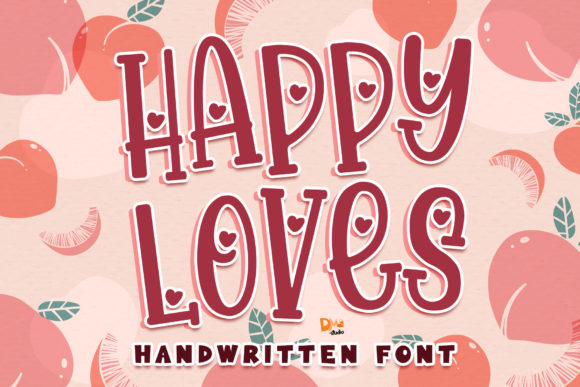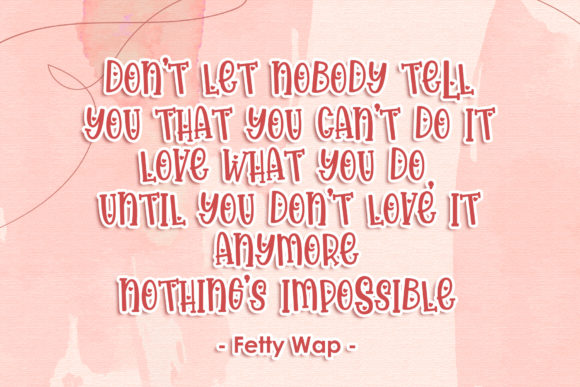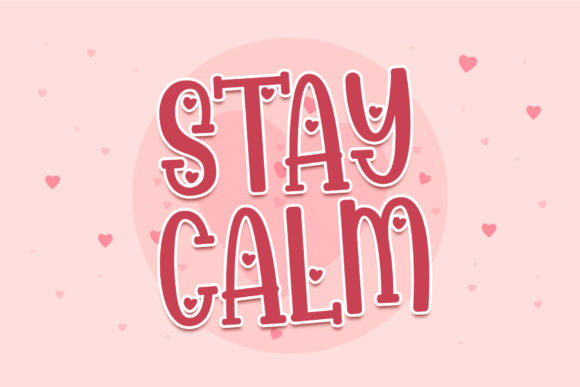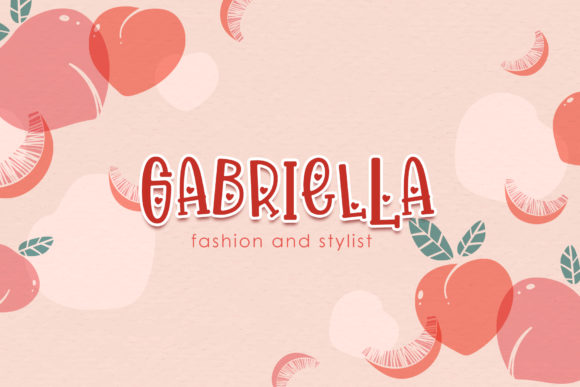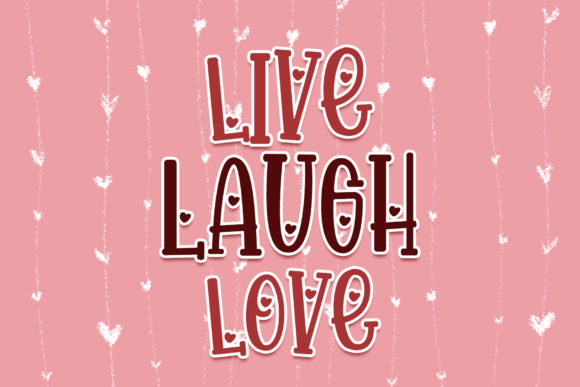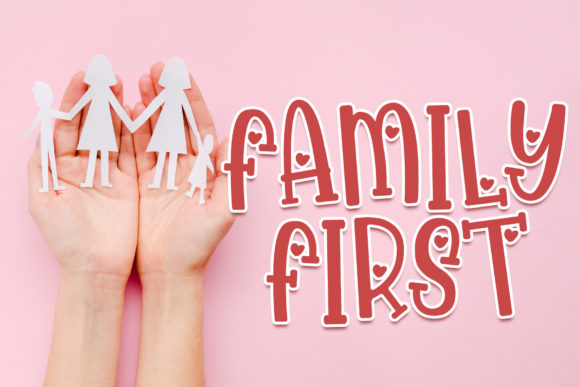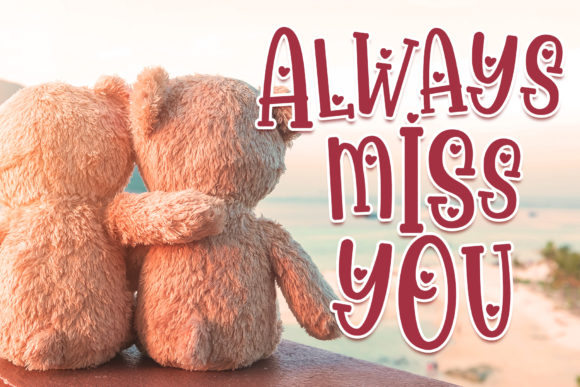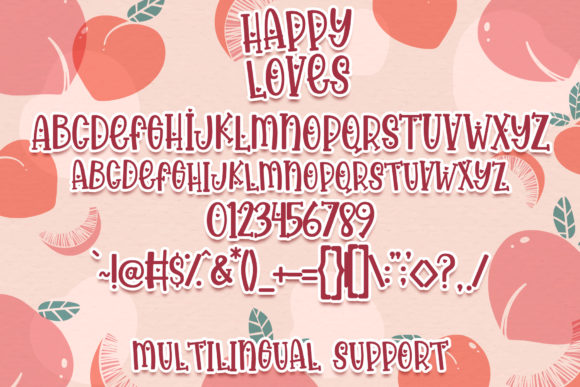
Happy Loves Font
About Happy Loves Font
Happy Loves is a is a cute and romantic handwritten font with an incredibly friendly feel. It’s perfect for creating outstanding and original designs!